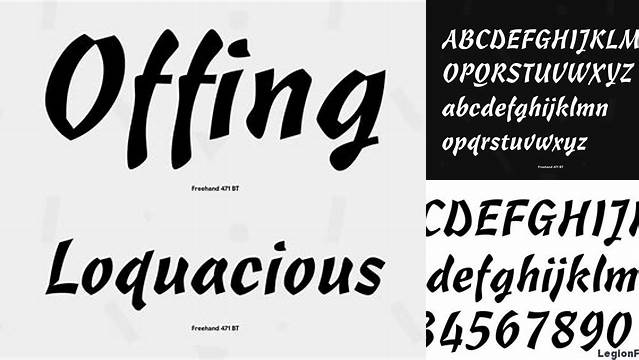
Freehand 471 BT Font: Uses And Alternatives
Introduction to Font Freehand 471 BT
Hey there, font enthusiasts! Today, we're diving deep into the world of Font Freehand 471 BT. This isn't just another font; it's a classic, a familiar face in the digital world that has graced countless designs over the years. Freehand 471 BT, with its distinctive style, has earned its place as a go-to choice for those seeking a touch of personality and flair in their projects. So, what makes this font so special? Let's break it down, shall we?
Font Freehand 471 BT is a typeface that instantly brings a sense of handwritten authenticity to any design. It's the digital equivalent of a pen gliding across paper, leaving behind a trail of unique, slightly imperfect letterforms. This font is part of the Bitstream library, and it's this connection that has made it widely available and accessible. What's particularly striking about Freehand 471 BT is its ability to convey a sense of approachability and warmth. Unlike the cold precision of some sans-serif fonts, Freehand 471 BT offers a human touch, making it ideal for projects that aim to connect with the audience on a personal level. Whether you're designing a website, crafting a logo, or creating marketing materials, this font can add a certain charm that sets your work apart. It is widely used due to its versatility in various applications. Consider its use in invitation cards, posters, and even social media graphics. It's not just about aesthetics; it's about the message you're trying to convey. The font's design lends itself well to creative endeavors, as it can be adapted to suit diverse visual concepts. It's the kind of font that can make your message stand out, whether you are a designer or just someone who loves to create. With its unique character, Freehand 471 BT is sure to give your work an artistic flair. So, if you're looking for a font that can capture the essence of a handwritten note with the benefits of digital precision, this is a good option. Its widespread use is a testament to its timeless appeal and its ability to bring a personal touch to the digital world. This font can be a powerful tool in your design arsenal, offering a unique way to communicate your ideas. Its character sets make it easier to express yourself without losing the artistic freedom that this font provides. It is this versatility that makes it a favorite among designers. Furthermore, its availability across various platforms and software makes it easy to integrate into your workflow. From personal projects to professional endeavors, Freehand 471 BT remains a relevant and exciting choice for anyone looking to add a touch of personality to their designs. The unique character designs also make it a good choice. This can enhance your work or project.
Features and Characteristics of Freehand 471 BT
Alright, let's get down to the nitty-gritty. What exactly are the features that make Font Freehand 471 BT stand out from the crowd? Well, for starters, its handwriting style is the main attraction. This font is designed to mimic the look of natural handwriting, complete with slight variations in stroke thickness and letter shapes. This gives your text an organic, human feel, which is perfect for projects where you want to create a sense of authenticity and approachability. Think about invitations, greeting cards, or anything that aims to feel personal and inviting. The font's flowing design is another key characteristic. The letters are designed to connect smoothly, creating a continuous, fluid appearance. This flowing nature adds to the handwritten effect and makes the text easy to read. Also, it has the ability to make your content more engaging. This characteristic makes it suitable for various design applications. This feature makes the font well-suited for anything from headlines to body text. You can use this in logos and even in website designs. The font is an excellent choice for any project requiring a personal touch. Its unique design allows it to add depth and meaning to your work. Its use in various media is a testament to its aesthetic appeal. Furthermore, consider its readability in different sizes and contexts. The font is carefully crafted to ensure that it remains clear and legible, even when used in smaller sizes. This versatility is important because it means you can use the font in a variety of projects without worrying about readability issues. From website headers to social media graphics, it's easy to incorporate it into your project. The font provides an effortless integration into both digital and print media, making it a convenient choice. The font's ability to retain its charm and readability across different platforms is a key aspect of its appeal. This makes it a practical choice for a wide range of projects. The font's adaptability ensures that your design work will be both visually appealing and easily understood by your audience.
Then, it's important to consider its versatility. Freehand 471 BT is not a one-trick pony. It works well in various contexts, from headings and subheadings to longer blocks of text. The font's adaptability allows it to be used effectively across various design applications, which is why it remains a popular choice. It is a good choice for adding a human touch to your designs. It is the perfect font for your creative work. Whether you are a seasoned designer or a beginner, the font is sure to add a unique touch.
How to Effectively Use Freehand 471 BT in Your Designs
Okay, now that we've covered the basics, let's talk about how to actually use Font Freehand 471 BT in your designs. First and foremost, consider the context. This font is best suited for projects where you want to create a sense of intimacy, warmth, or a personal touch. Think about invitations, greeting cards, or any design that needs to feel approachable. It is not always the best choice if you want a serious or formal look. Its use should be in alignment with the message you are communicating. Next up, pay attention to pairing it with other fonts. You can mix and match Freehand 471 BT with other fonts to create an interesting visual contrast. Try pairing it with a clean, simple sans-serif font for body text to balance the handwritten style of Freehand 471 BT. This will help create a harmonious design that's both visually appealing and easy to read. Mixing styles is a clever way to make your designs pop. This is a simple but effective method for enhancing your design's overall look. Furthermore, adjust the size and spacing. The size and spacing of the font can significantly impact its readability and visual appeal. Experiment with different sizes and line spacing to find what works best for your design. It is important to ensure that your text is easy to read. Use the font appropriately; do not overuse it. Use it judiciously, as using it everywhere can make your design look cluttered and reduce its effectiveness. Use it as a headline or for accent text to add a touch of personality. This is a great way to highlight important information. Use it in a way that supports the overall visual harmony of your project. It can be useful in the design process. It's a great way to enhance your design and is sure to give your work an artistic touch. If you’re working on a website, make sure the font is easy to read on different devices and screen sizes. This ensures that it is easily accessible to all users. It's also essential to think about color and background. Freehand 471 BT pairs well with a variety of colors, but it looks particularly good against a light or pastel background. This enhances its readability and makes it stand out. Avoid using it on a busy background, as this can make it hard to read. Ensure that your color palette complements your design and reinforces the message you are trying to communicate. Using a variety of tools, you can make it fit your project needs. Using these elements will add to your design work. Remember, the key is to be creative and experiment. Don’t be afraid to try different combinations and approaches until you find what works best for your design. This experimentation is key to mastering any design, and using this font is no different.
Applications and Examples of Freehand 471 BT
Let's get inspired! There are a ton of ways Font Freehand 471 BT can be used to great effect. From invitations to logos and web designs, let's see how this versatile font can shine.
- Invitations & Greeting Cards: Imagine your event invitation in this font. It gives off an instant impression of warmth and personal touch, perfect for weddings, birthdays, or any special event. Paired with elegant cardstock and perhaps a watercolor illustration, it sets the tone for a special celebration. It adds a touch of elegance that will make your invitations stand out. Freehand 471 BT can make your invitations memorable and elegant.
- Logos and Branding: Many brands use this font to add a handcrafted feel. Think of small businesses or companies aiming to present a friendly, approachable image. It adds an immediate sense of authenticity to your brand. It is also great for logos that emphasize individuality and a unique touch. It is useful for making a memorable first impression. It has a charm that draws attention to your brand.
- Website Design: This font can be used for headlines, subheadings, or call-to-action buttons to give your website a human touch. It adds a sense of warmth to your digital presence. It creates a balance between technology and human touch. It is useful for user engagement. This font is sure to make your website more engaging and inviting.
- Social Media Graphics: Creating quote graphics, captions, or promotional content. Its handwritten style is perfect for creating engaging content that catches the eye. Its unique character is ideal for attracting attention. It is perfect for making your social media posts stand out.
- Print Materials (Posters, Flyers): Freehand 471 BT is a great option for promotional material. It allows you to create a design that speaks to your audience. You can use it for posters and flyers to grab attention. This versatility is important. The design of the font makes it an excellent choice for different applications. The font adds a unique touch to your work. It will give your work a unique flair.
Alternatives to Freehand 471 BT
While Font Freehand 471 BT is fantastic, it's always good to know your options! Here are a few alternative fonts that offer a similar aesthetic, just in case you're looking for something slightly different.
Conclusion: Is Freehand 471 BT the Right Font for You?
So, is Font Freehand 471 BT the right choice for your next project? If you're looking for a font that adds a touch of personality, warmth, and a human touch, then absolutely. Its handwritten style, flowing design, and versatility make it a great option for a variety of projects, from invitations and logos to website designs and social media graphics. However, keep in mind the context. This font isn't always suitable for every project. If you're working on something serious or formal, you might want to consider other options. But for projects where you want to create a sense of approachability and authenticity, Freehand 471 BT is a fantastic choice. The font's unique character makes it an excellent choice for different applications. The ability to enhance design work is very useful. Consider how the font will look and feel in your specific design. With a wide range of styles, your work will come to life. So, go ahead, give it a try! Experiment with it, play around with different combinations, and see how it can bring your designs to life. It's a classic for a reason, and with a little creativity, you can create some truly amazing designs with it. The font's versatility makes it a great choice for any project. This font is sure to give your work an artistic flair.